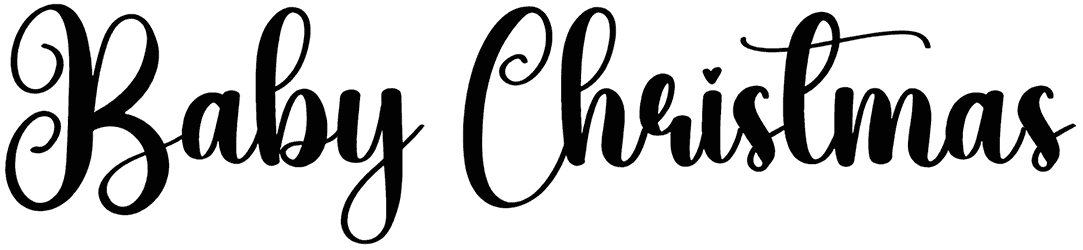
Baby Christmas Font
The cursive form of this calligraphy font is like a fresh plant, and it’s going to become the ravishing part of your project. The Baby Christmas font is a perfect item for countless designs, such as a baby shower card or a Christmas Instagram post. The natural style of this thank you font gonna throw a charming vibe into your text.